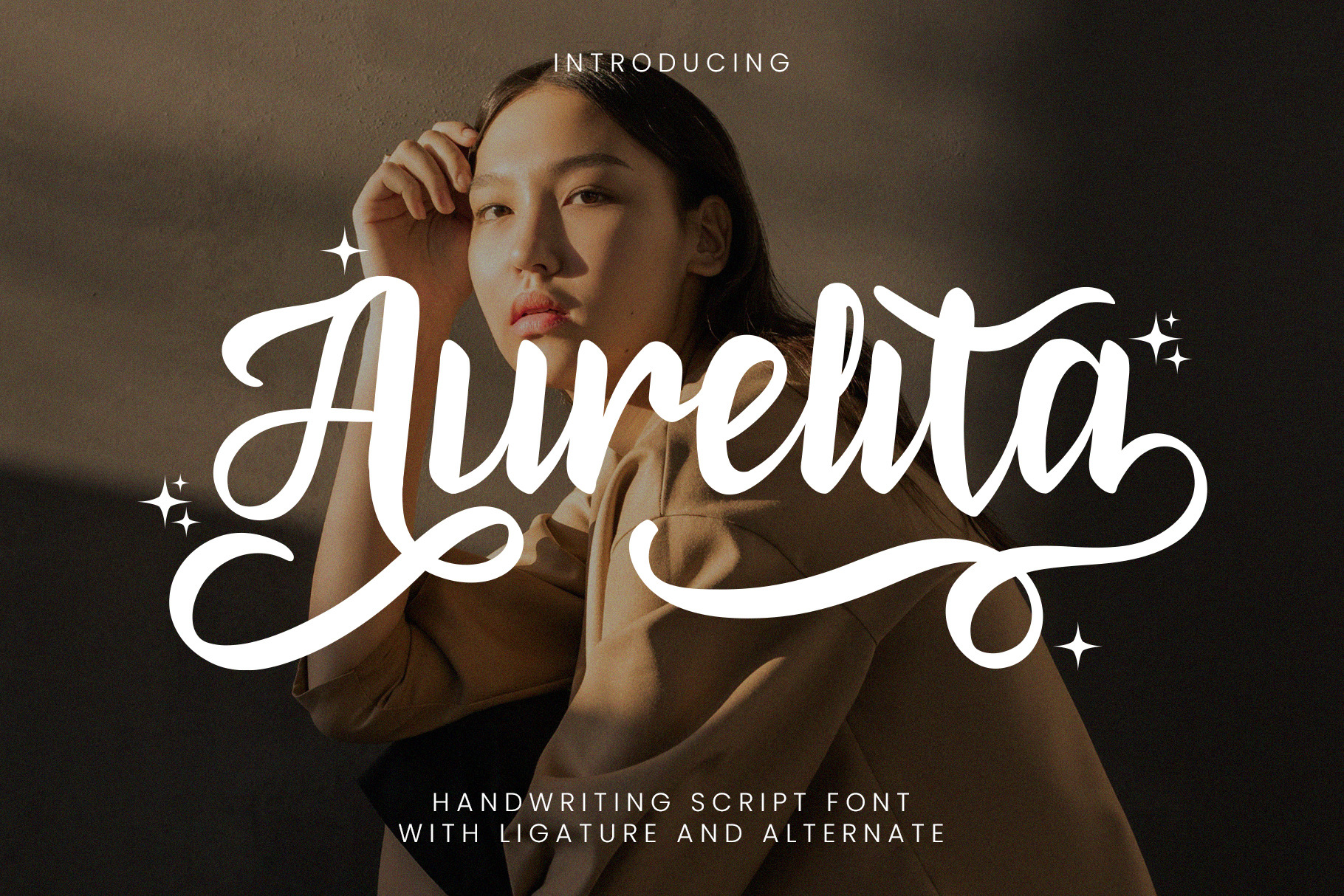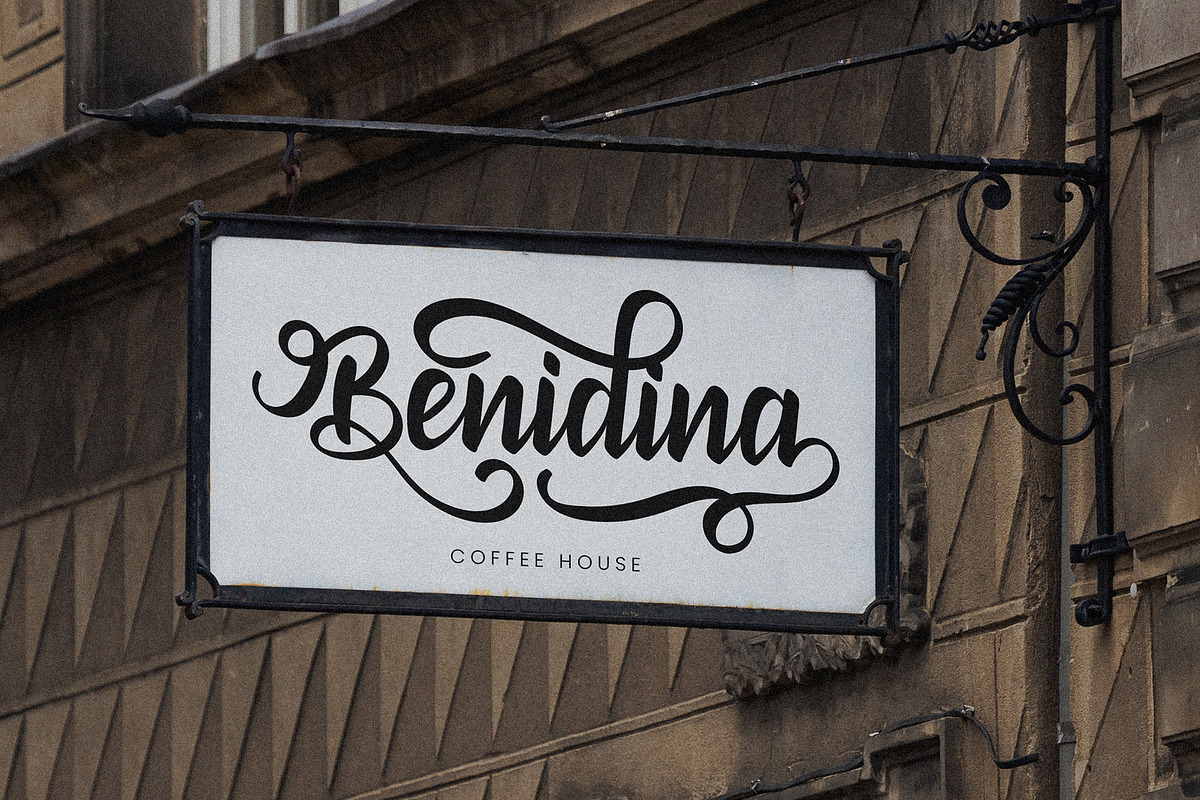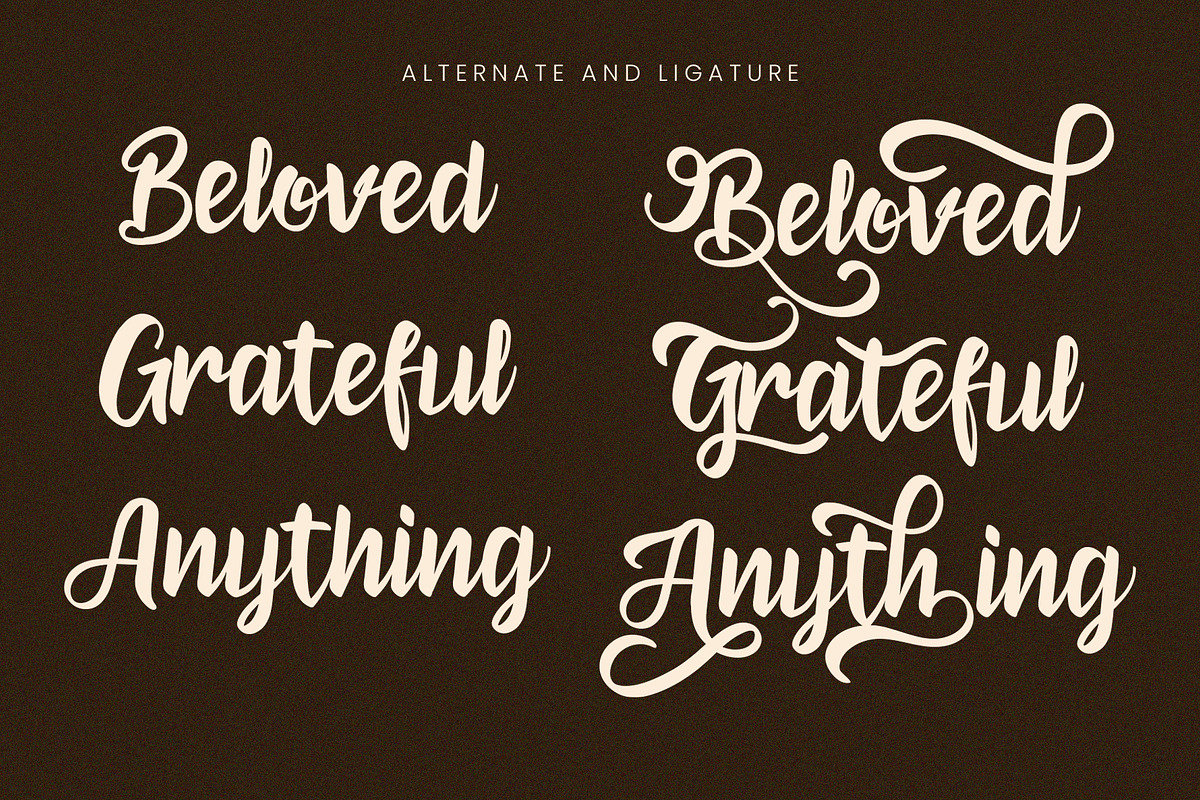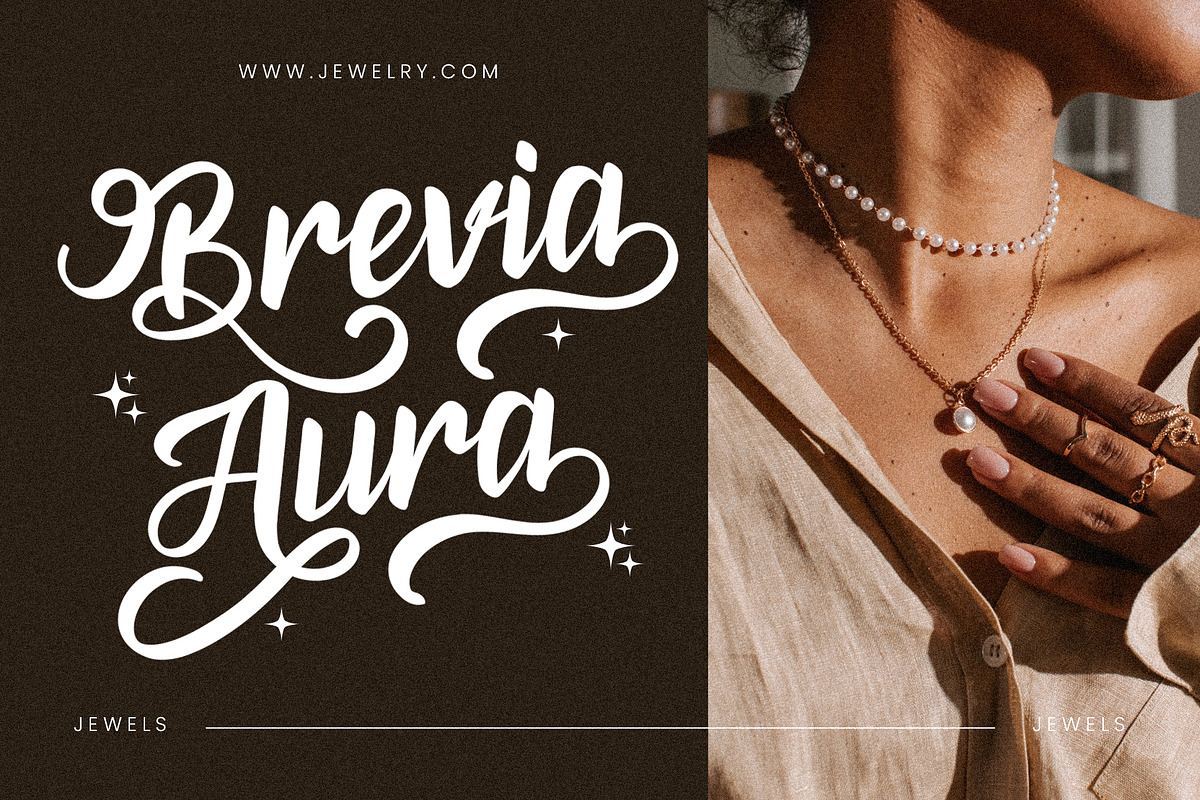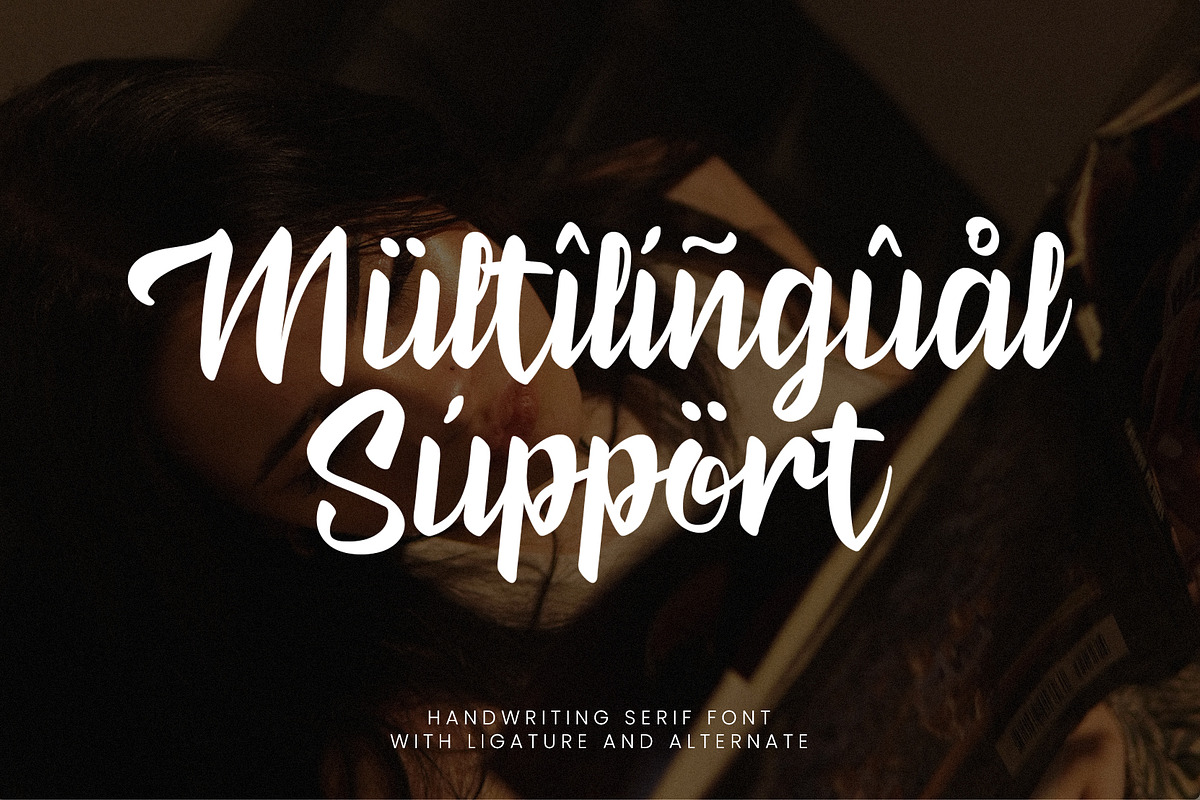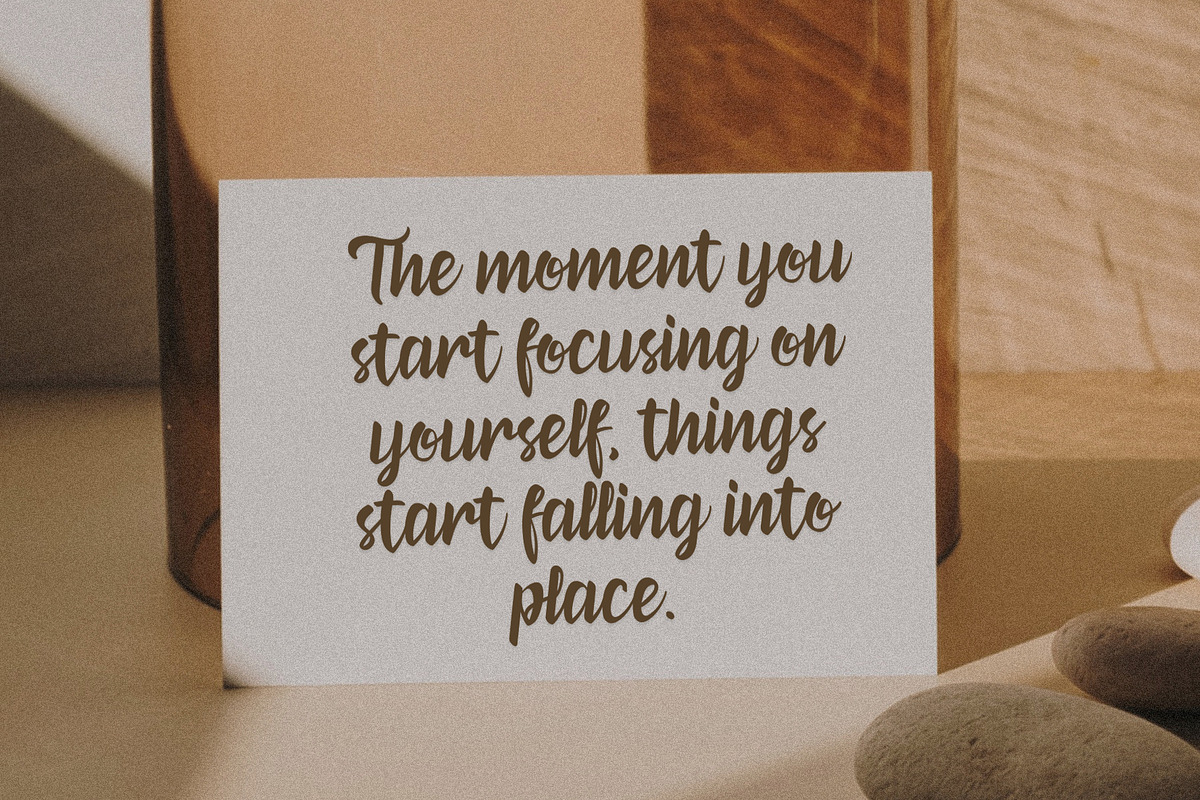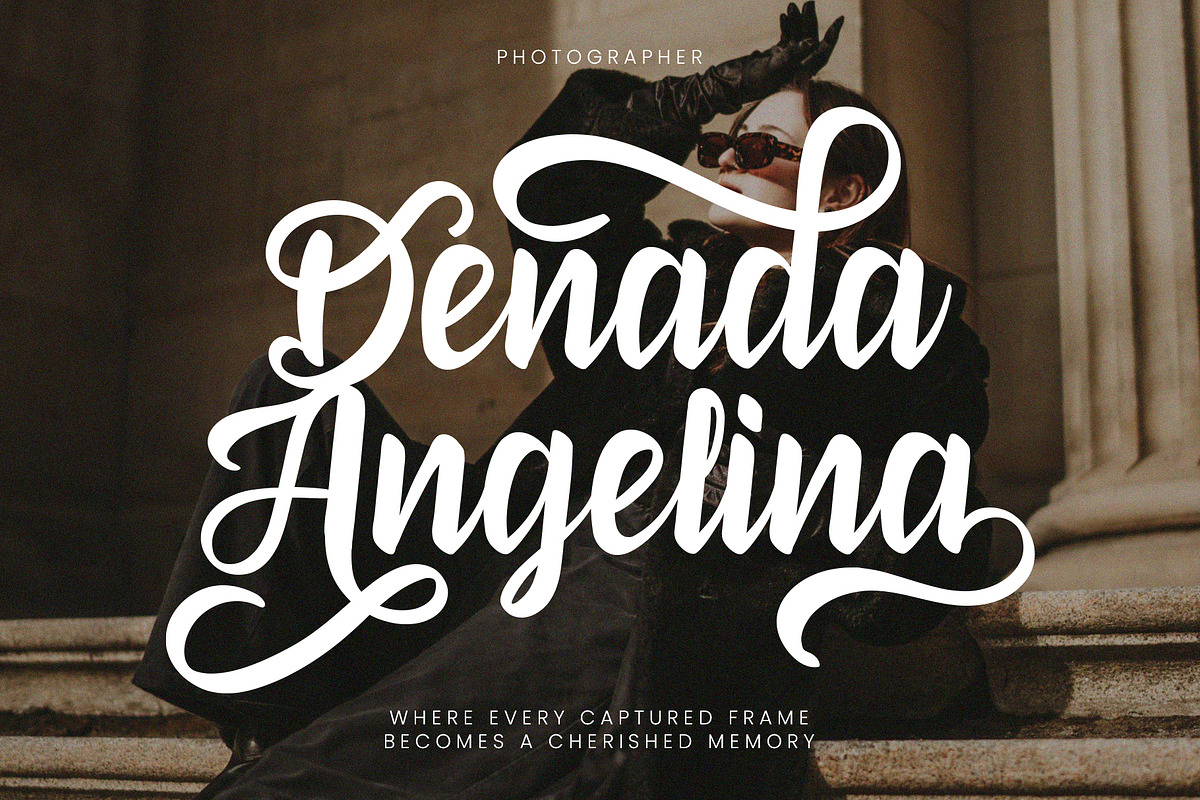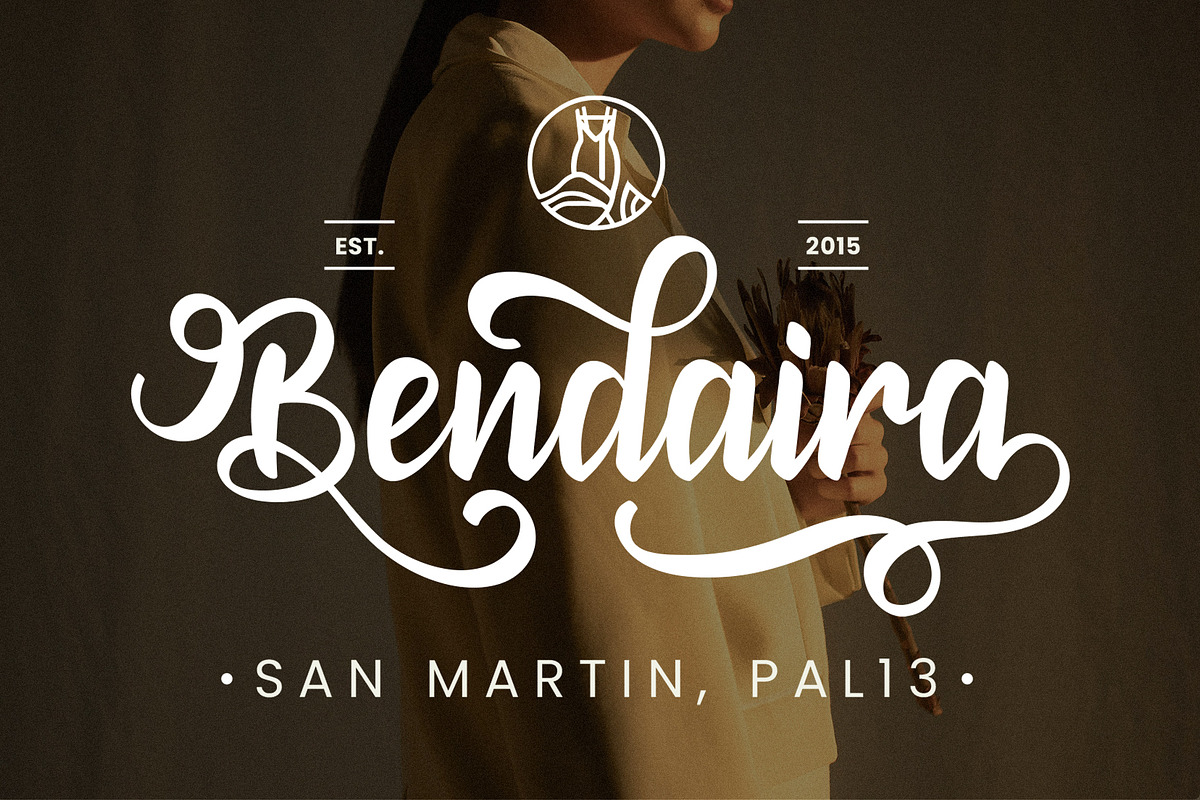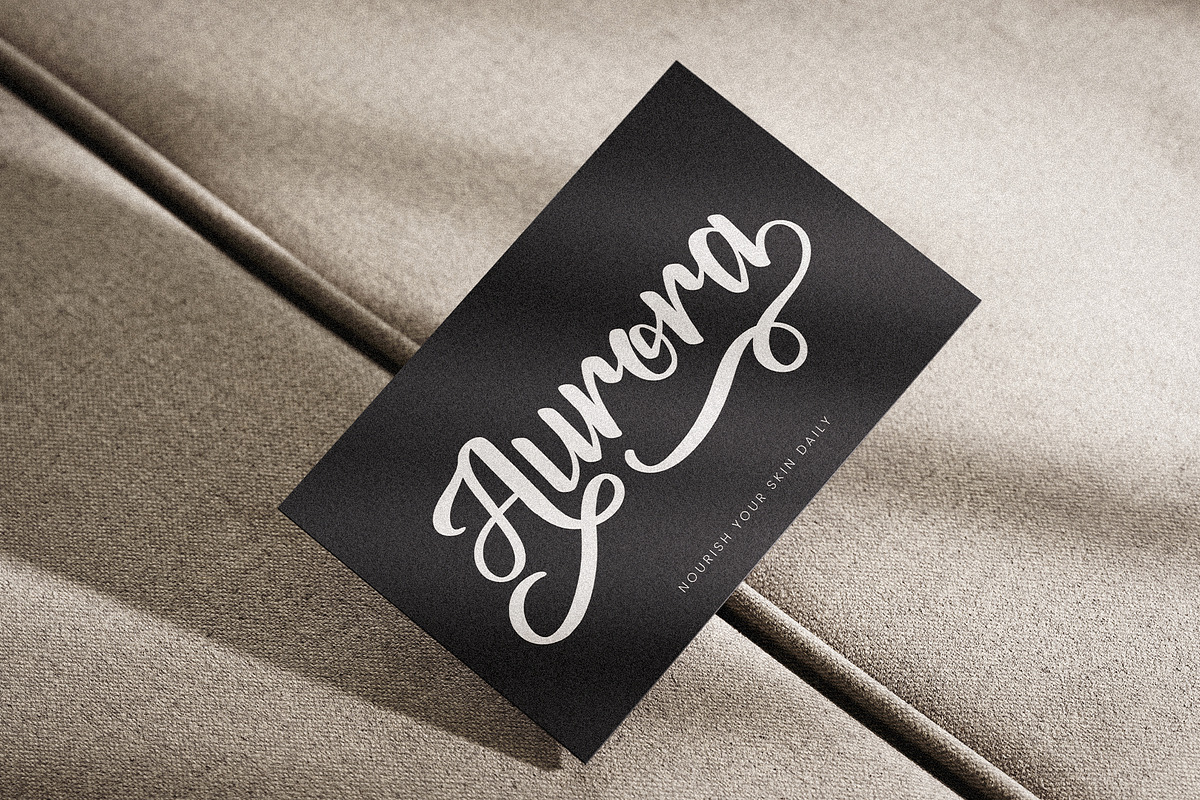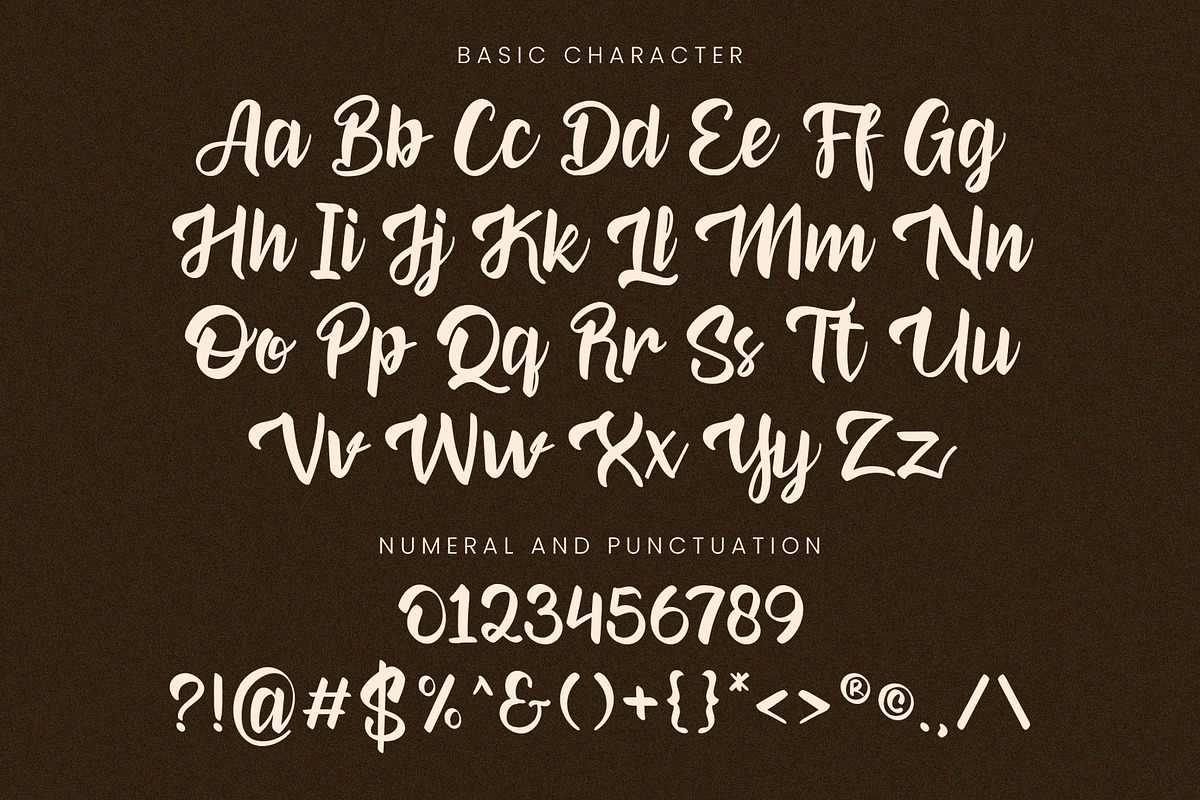
Aurelita - Handwriting Script Font
Beautifully crafted Handwriting Script Font, featuring smooth, flowing strokes that add charm to logos, wedding stationery, quotes, and lifestyle designs
Uppercase & Lowercase Characters: Fully designed for a complete typographic experience Numerals & Punctuation: All the numbers and punctuation marks you need for any design task Multilingual Support: Includes characters for multiple languages, ensuring global usability Bonus Design Element